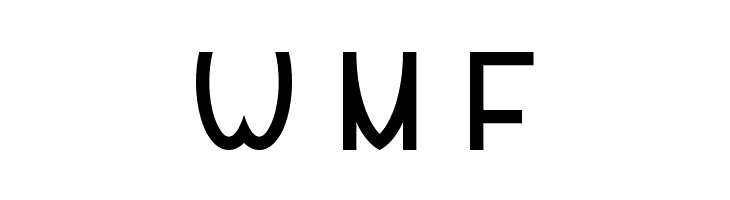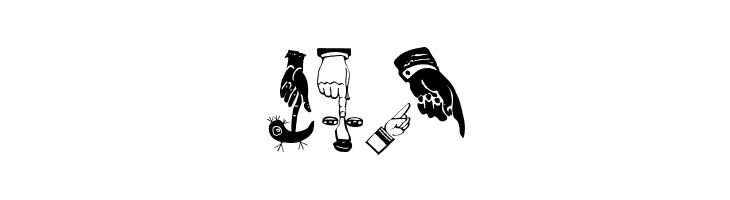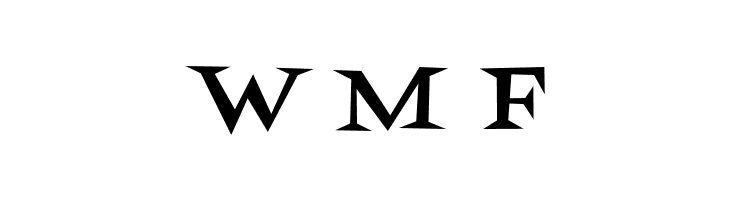
A bold, gothic-style font with sharp, angular edges and intricate details.
A bold, expressive handwritten font with dynamic strokes.
A whimsical and playful font with hand-drawn, irregular strokes.
( Fonts by Patrick Broderick )
A bold, angular serif font with a vintage yet modern twist.
( Fonts by www.fugit-tempus.de )
An ornate blackletter font with sharp, angular lines and decorative flourishes.
A bold, stencil-like font with rounded strokes and intentional gaps.
A bold, modern font with geometric shapes and contrasting solid and outlined segments.
A bold, futuristic font with sharp, elongated spikes and angular design.
A decorative set of romantic-themed graphics with hearts and love symbols.
( Fonts by Kimberly Geswein - kimberlygeswein.com )
A bold, distressed font with a rugged, vintage aesthetic.
A playful, bold font with a 3D effect and rounded characters.
( Fonts by Ruben Prol - www.ipanemagrafica.com )
A bold, geometric font with unique circular elements and a modern aesthetic.
A bold, geometric font with angular cuts and a dynamic style.
A sleek, modern italic font with elongated, rounded characters.
Decorative font with framed silhouette illustrations for each character.
A lively, illustrative decorative font inspired by expressive street art.
Illustrative display font featuring diverse dancing figures as letterforms.
Cartoonish, clown-themed decorative font with illustrated glyphs.
Eclectic pictogram and dingbat set with bold, playful icons.
A dingbat font with office and business-themed pictograms.
A playful and bold font with exaggerated curves and dynamic strokes.
A display font featuring illustrated birds and owls as characters.
A whimsical, illustrated font with each letter embedded in unique artwork.
Comic-style pictorial font with business and office scenes.
An artistic and illustrative font with unique hand-drawn characters.